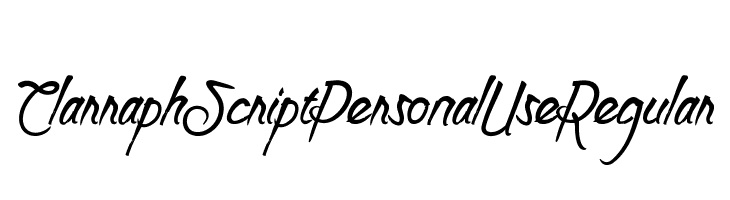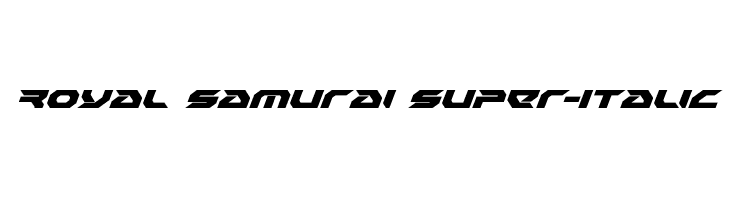
A playful and whimsical font with bold, rounded strokes and an artistic flair.
A futuristic, bold font with geometric shapes and sharp angles.
( Darrell Flood )
A bold, playful font with a comic book style and hand-drawn appearance.
A modern, rounded sans-serif font with a friendly and clean appearance.
A modern, elegant font with clean lines and balanced strokes.
A bold, futuristic font with a leftward slant and geometric design.
A bold, italic serif font with strong, dynamic strokes and sharp serifs.
A graceful and flowing script font with elegant cursive strokes.
A modern, italicized font with characters enclosed in folder-like outlines.
A playful, looping handwritten-style font with interconnected characters.